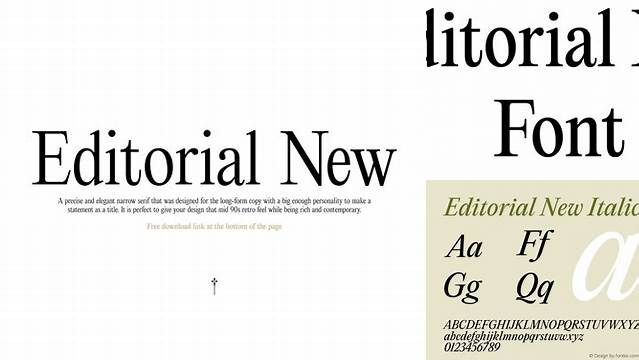
Free Editorial Italic Fonts: Download Guide
Hey guys! Are you on the hunt for that perfect italic font to add a touch of elegance and sophistication to your designs? Look no further! In this comprehensive guide, we'll dive deep into the world of editorial new italic fonts, exploring their uses, characteristics, and, most importantly, where you can snag them for free. So, buckle up and let's get started!
What is an Editorial New Italic Font?
When we talk about editorial new italic fonts, we're referring to a specific style of typeface that's often used in publications like magazines, books, and newspapers. These fonts are characterized by their sleek, stylish, and slightly slanted appearance, which gives them a sophisticated and refined feel. The italic style is not just about tilting the letters; it involves a redesign of the glyphs to create a flowing, cursive-like form that complements the regular font. Editorial italic fonts are designed to be highly readable while also adding a touch of visual interest to the text. They often feature delicate serifs, elegant curves, and a balanced contrast between thick and thin strokes. This makes them ideal for highlighting key phrases, adding emphasis, or creating a visual hierarchy within a body of text. The 'new' in the name often implies a contemporary design, incorporating modern aesthetics while retaining the classic charm of traditional italic typefaces. The beauty of these fonts lies in their versatility. They can be used for body text, headlines, captions, and even logos, depending on the specific design and the overall aesthetic you're aiming for. Editorial fonts often come in various weights and styles, including regular, bold, and semi-bold, providing designers with a wide range of options to play with. Free editorial italic fonts are a boon for designers, especially those who are just starting or working on a tight budget. The availability of high-quality free fonts has democratized design, allowing more people to create beautiful and professional-looking content without the hefty price tag often associated with premium fonts. However, it's important to be mindful of licensing terms when downloading and using free fonts. Some fonts may be free for personal use but require a commercial license for business purposes. Always check the license agreement to ensure you're using the font legally and ethically. Overall, editorial new italic fonts are a fantastic tool for anyone looking to elevate their designs. Their elegant, readable, and versatile nature makes them a staple in the world of typography. Whether you're designing a magazine layout, crafting a compelling book cover, or simply adding a touch of class to your website, an editorial italic font can make all the difference. So, dive in, explore the options, and find the perfect font to bring your vision to life.
Why Use an Italic Font in Editorial Design?
Italic fonts play a crucial role in editorial design, serving several key purposes that enhance the overall reading experience and visual appeal. One of the primary reasons to use an italic font is for emphasis. When you want to draw attention to a specific word, phrase, or sentence within a block of text, italics provide a subtle yet effective way to do so. Unlike bolding, which can sometimes feel too heavy or disruptive, italics offer a more delicate emphasis that integrates seamlessly with the surrounding text. This is particularly useful in long-form content where you want to highlight key points without breaking the flow of reading. Another important function of italic fonts in editorial design is to indicate quotes and citations. It's a common practice to set quotations or titles of books, movies, and other works in italics to distinguish them from the main body text. This not only helps readers identify quoted material but also adds a layer of sophistication to the design. The use of italics in this context signals to the reader that the words are not the author's own, providing clarity and preventing any potential confusion. Furthermore, italic fonts can be used to create visual hierarchy within a design. By strategically incorporating italics, designers can guide the reader's eye through the page, highlighting important elements and creating a sense of flow. For instance, using italics for captions, subheadings, or pull quotes can help break up large blocks of text and make the content more digestible. This is especially important in editorial design, where readability and user experience are paramount. Beyond their functional uses, italic fonts also contribute to the aesthetic appeal of a design. The slanted, cursive-like form of italic letters adds a touch of elegance and sophistication to any layout. Editorial designs often aim for a polished, professional look, and italic fonts can help achieve this by adding a subtle visual flair. They can also be used to create a contrast with the regular font, adding visual interest and preventing the design from feeling monotonous. However, it's important to use italic fonts judiciously. Overusing italics can have the opposite effect, making the text look cluttered and difficult to read. The key is to use them strategically and sparingly, focusing on their primary functions of emphasis, citation, and visual hierarchy. In addition to these traditional uses, editorial new italic fonts can also be employed creatively to add personality and character to a design. For example, they might be used in logos, branding materials, or even as a decorative element in illustrations. The versatility of italic fonts makes them a valuable tool in any designer's arsenal. In conclusion, italic fonts are an indispensable element of editorial design, serving both functional and aesthetic purposes. Whether you're emphasizing key points, citing sources, creating visual hierarchy, or simply adding a touch of elegance, italics can significantly enhance the overall impact of your design. By understanding their role and using them effectively, you can create layouts that are both visually appealing and highly readable.
How to Choose the Right Italic Font for Your Project
Selecting the right italic font for your project is a crucial decision that can significantly impact the overall look and feel of your design. With so many options available, it's essential to consider several factors to ensure you choose a font that aligns with your project's goals and aesthetic. Let's break down the key considerations for choosing the perfect italic font.
First and foremost, readability should be your top priority. An elegant and stylish font is of little use if it's difficult to read. Italic fonts, by their nature, are slightly less legible than their regular counterparts due to their slanted and often more intricate letterforms. Therefore, it's crucial to choose an italic font that maintains clarity and readability, especially when used for body text or lengthy passages. Look for fonts with well-defined letterforms, adequate spacing, and a consistent weight. Avoid fonts with overly decorative or distorted italic styles, as these can strain the reader's eyes and detract from the message. The key is to strike a balance between visual appeal and readability. Next, consider the purpose and context of your project. The type of project you're working on will heavily influence the style of italic font you choose. For example, if you're designing a formal invitation or a high-end magazine, you might opt for a sophisticated and elegant italic font with delicate serifs and flowing curves. On the other hand, if you're working on a more casual or contemporary project, a sans-serif italic font with a clean and modern look might be more appropriate. Think about the message you're trying to convey and the target audience you're trying to reach. Choose an italic font that complements the overall tone and style of your project. Another important factor to consider is font pairing. In most designs, you'll be using more than one font, so it's crucial to choose an italic font that pairs well with your primary typeface. The italic font should complement the regular font, creating a harmonious and visually appealing combination. A common approach is to pair a serif italic font with a sans-serif regular font, or vice versa. This creates a contrast that can add visual interest to your design. However, it's important to ensure that the two fonts share similar characteristics, such as x-height or stroke contrast, to maintain a cohesive look. Experiment with different font pairings to see what works best for your project. The weight and style of the italic font are also important considerations. Italic fonts come in various weights, from light to bold, and different styles, such as oblique or cursive. The weight of the italic font should be appropriate for its intended use. For example, if you're using italics for emphasis within a block of text, a slightly heavier weight might be more effective. If you're using italics for captions or subheadings, a lighter weight might be more suitable. The style of the italic font can also impact the overall look and feel of your design. Oblique italics are simply slanted versions of the regular font, while cursive italics have a more handwritten appearance. Choose the style that best fits the aesthetic of your project. Don't forget to consider licensing and usage rights. If you're using a free italic font, be sure to check the license agreement to ensure that you're allowed to use it for your intended purpose. Some free fonts are only free for personal use, while others are free for commercial use as well. Pay attention to any restrictions, such as requiring attribution or prohibiting modification of the font. If you're using a premium font, make sure you have the appropriate license for your project. It's always better to err on the side of caution and ensure that you're using fonts legally and ethically. Finally, test and preview your chosen italic font in your design. Before finalizing your decision, try out the font in different sizes, contexts, and layouts. See how it looks on screen and in print. Adjust the font size, line height, and letter spacing as needed to optimize readability and visual appeal. Get feedback from others to ensure that your chosen font is effective and conveys the desired message. Choosing the right italic font for your project is a process that requires careful consideration and experimentation. By prioritizing readability, considering the purpose and context, pairing fonts effectively, and paying attention to licensing and usage rights, you can select an italic font that enhances your design and helps you achieve your goals. So, take your time, explore the options, and choose wisely!